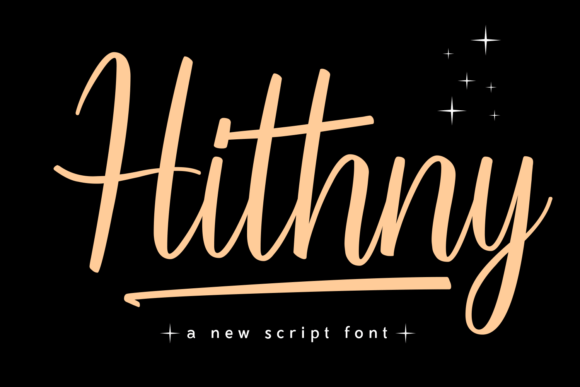
Embrace the Allure of Hithny Font: Where Beauty Meets Elegance
Feel the exquisite beauty of handwritten elegance as you introduce your designs to the Hithny font. Its enchanting script style, crafted with the utmost care, captivates the senses with its graceful curves and refined strokes. Allow Hithny to infuse your creations with a touch of timeless sophistication, transforming them into masterpieces that resonate with grace and charm.
Immerse yourself in the world of invitations, branding, and delicate designs, where Hithny reigns supreme. With its artistic flair, it adds a touch of finesse that elevates your projects to new heights. Witness the magic as your words dance across the page, imbued with a captivating charm that draws eyes and hearts alike.
Hithny is a font that speaks volumes without uttering a single word. Its intricate details and delicate flourishes create a visual symphony that captivates and holds attention. Whether you're designing wedding invitations, crafting logos, or creating stunning social media graphics, Hithny is the perfect companion, guiding you toward a world of beauty and sophistication.
Let Hithny be your muse, inspiring you to create designs that are both timeless and captivating. Its natural flow and authentic charm breathe life into your projects, transforming them into works of art that leave a lasting impression. Discover the endless possibilities that await you as you embark on a creative journey with Hithny by your side.
Unleash your imagination and explore the boundless realm of creativity. Hithny is more than just a font; it's an invitation to express your individuality, to tell stories with every stroke, and to create designs that resonate with emotion and authenticity. Embrace the allure of Hithny and elevate your creations to the pinnacle of excellence.